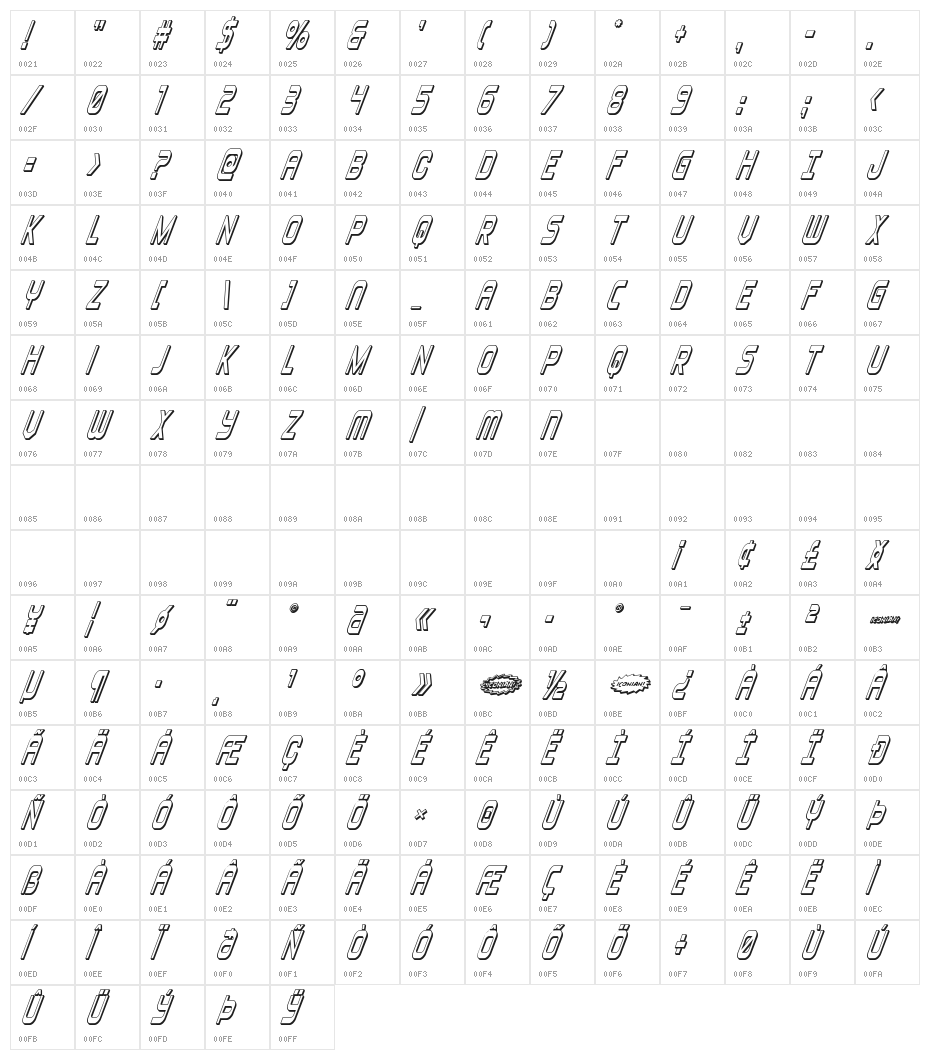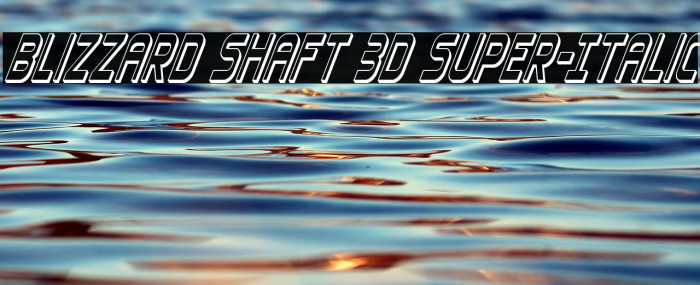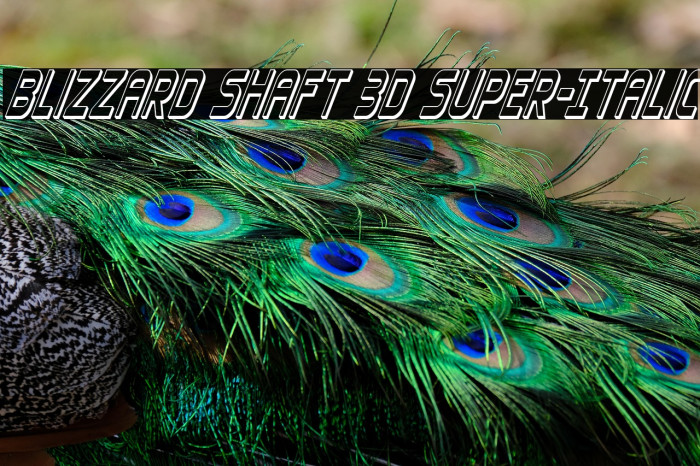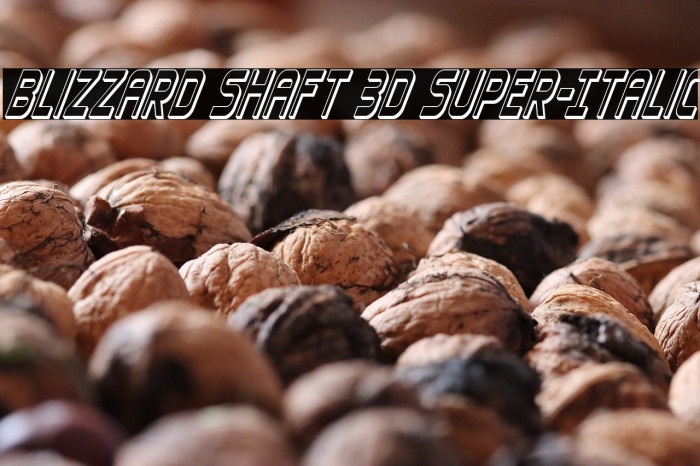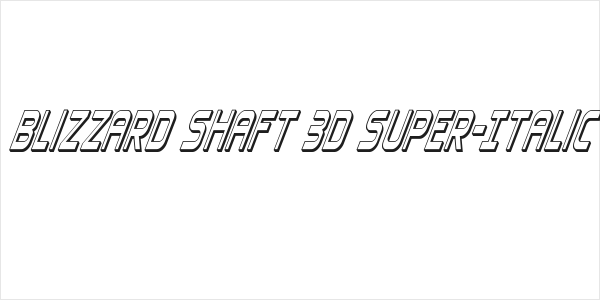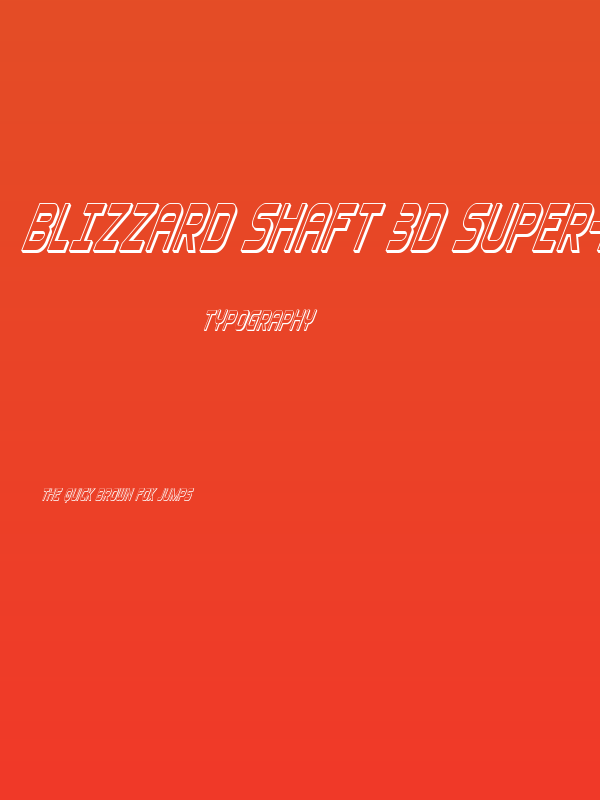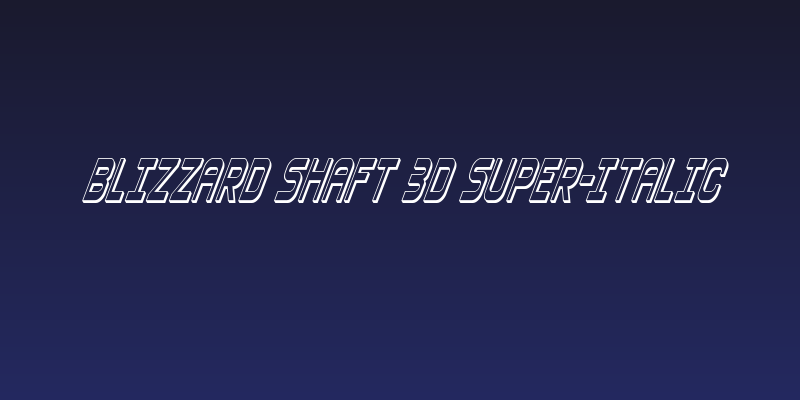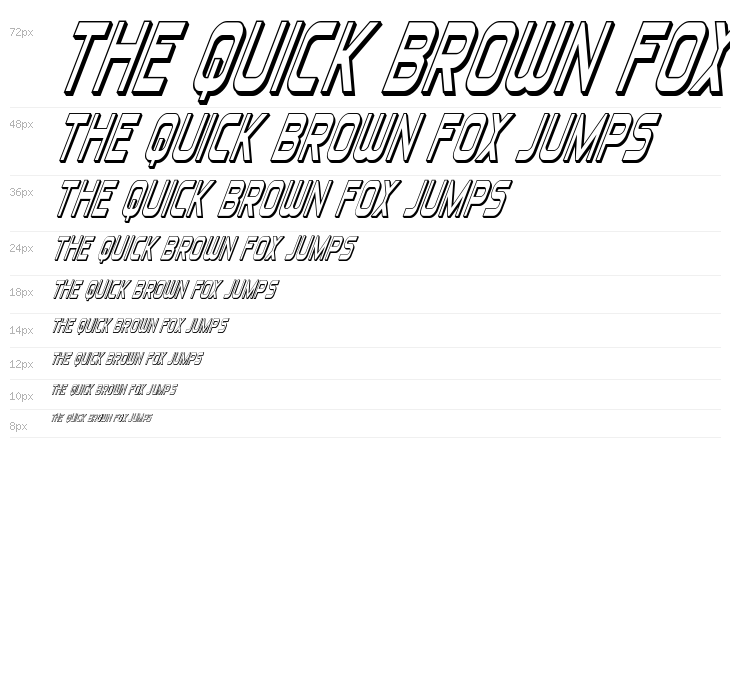
Blizzard Shaft 3D Super-Italic Font
Blizzard Shaft 3D Super-Italic Description
This font features a bold, three-dimensional design with a strong italic slant, creating a dynamic and energetic appearance. The characters are outlined, giving them a hollow look that enhances the 3D effect. The angular and geometric shapes of the letters contribute to a modern and futuristic style. The uppercase and lowercase letters maintain a consistent style, with numerals and special characters following the same design principles. The font's structure is clean and legible, making it suitable for attention-grabbing headlines or titles.